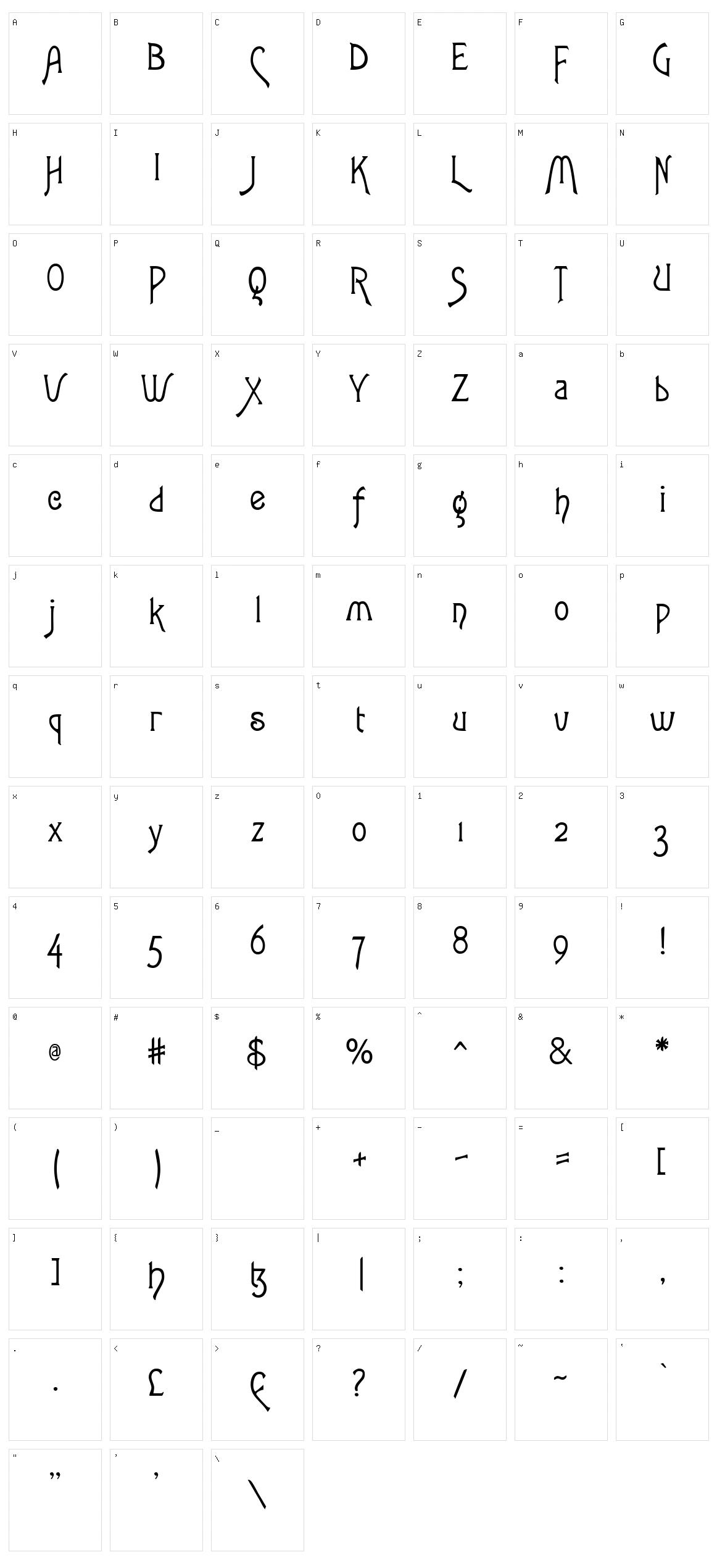
Lansbury FG
The first name of this beautiful Art Nouveau font it seems was "Art Gothic" or "Toulouse Lautrec". It became a "famous font" through a TV series starring Angela Lansbury as detective novelist Jessica Fletcher. So the font also runs under "Fletcher Gothic", "Lansbury" etc.
Using one of the anonymous freeware versions around, I added many characters. Alternative characters had to go to different places, non-standard of course, but more convenient for non-Unicode-aware software. This free font software is mainly for the benefit of amateurs. Professionals, get one of the commercial versions on sale if you bother. Or put up with the inconvenience for free.
In version 1.10 I did further tweaking on letterspacing, kerning and outline smoothing and also added a few more characters in slots that had been empty.